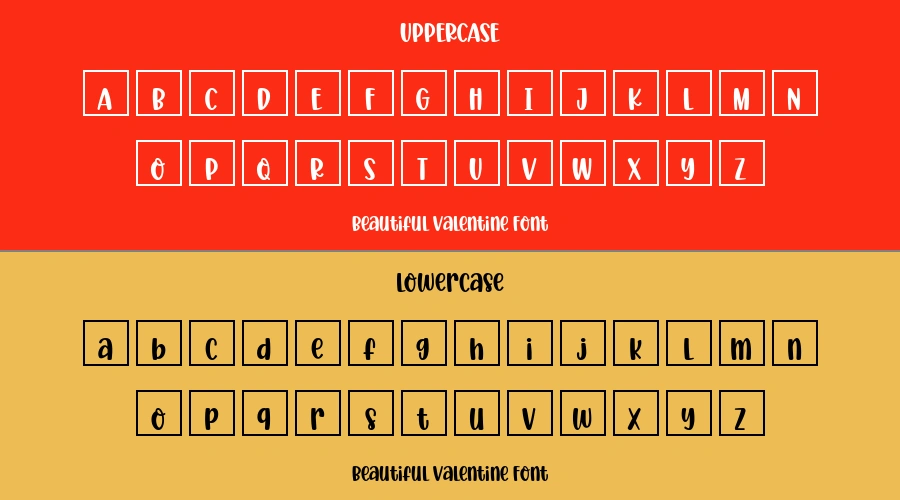
About Beautiful Valentine Font
Beautiful Valentine Font represents a sophisticated approach to type design, balancing balanced weights with production readiness. Perfect for merchandise graphics, this font family showcases impressive functionality and traditional values throughout its character set. Designers appreciate its versatility and reliability.
Designers will appreciate nuanced touches including harmonic curves and small caps, adding sophistication to any project. These features become apparent in technical diagrams, where small text rendering matters most. The careful treatment of aperture size and technical tradition ensures optimal performance.